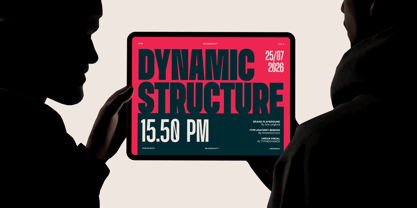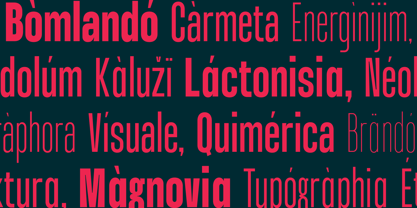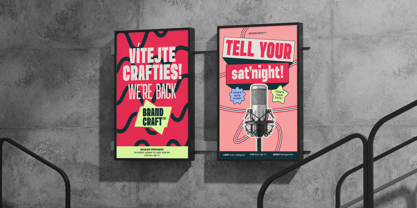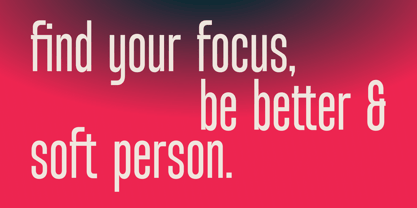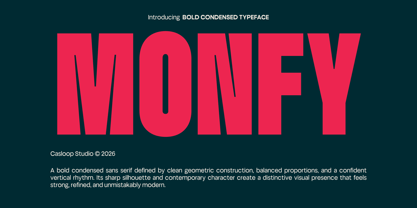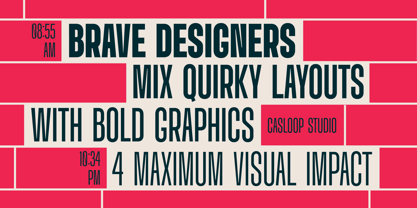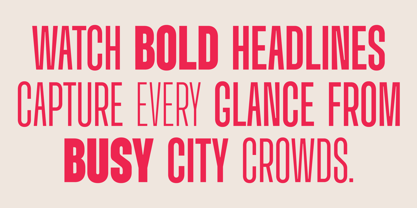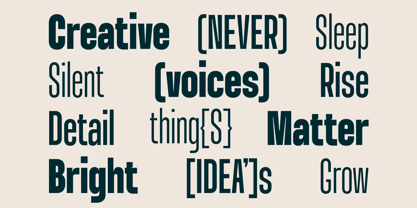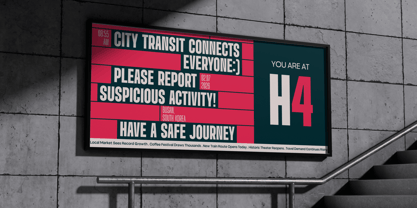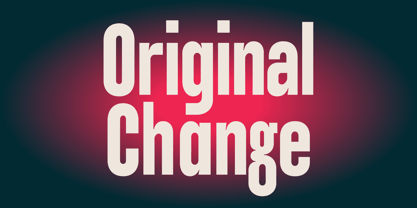
Monfy
por Casloop Studio
La familia tipográfica Monfy fue diseñada por Wantara Putra y publicada por Casloop Studio. Monfy contiene 9 estilos y opciones de paquete familiar. Más información sobre esta familia
Monfy is a bold condensed typeface designed to deliver maximum impact through clean structure and disciplined proportions. Its defining characters A, G, R, M, S, and T establish the typeface's identity with strong condensed silhouettes, precise vertical proportions, and refined sans serif forms that create a dense yet balanced visual rhythm. The result is a sharp, authoritative typeface that remains highly legible while projecting confidence and modernity. With its versatile 9-weight family, Monfy is an excellent choice for headlines, branding, logotypes, editorial design, and visual identities that demand a bold presence with contemporary precision. Recommended pairing with Inter, Barlow Condensed, Archivo Narrow, Helvetica Neue, Univers, DIN
Diseñadores: Wantara Putra
Fundición: Casloop Studio